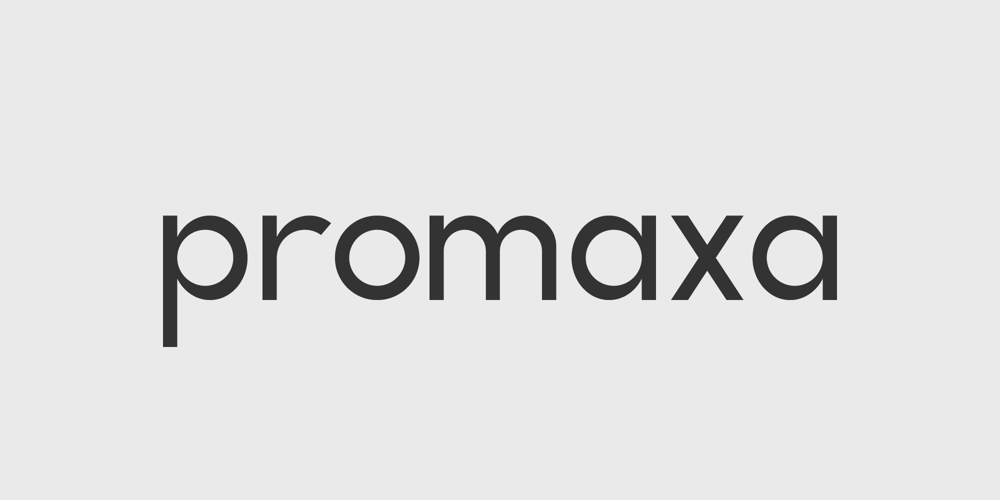
Promaxa
Promaxa font
Promaxa Font Family was designed by Iwan Alwan and published by Artiveko. Promaxa contains 2 styles and family package options. Promaxa is a modern sans serif font crafted by Iwan Alwan. It features unique shapes and offers variations in uppercase and lowercase characters, enhancing its versatility. With multilingual support, Promaxa is perfect for diverse design needs, blending elegance and functionality. Whether for branding, headlines, or web design, its distinct style makes every project stand out.